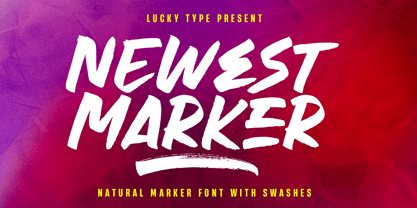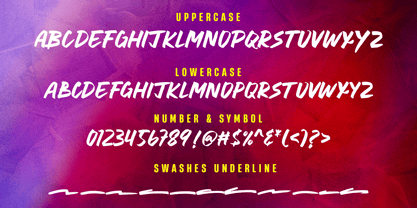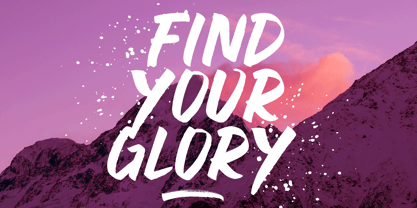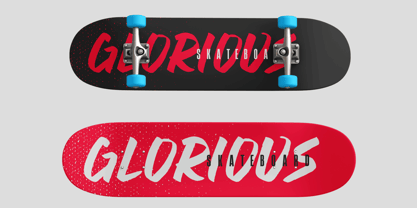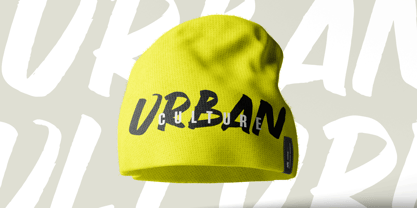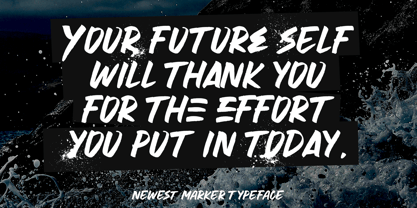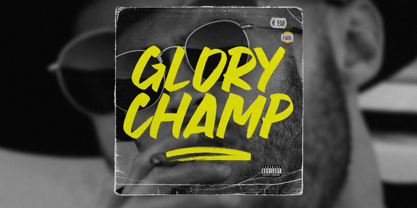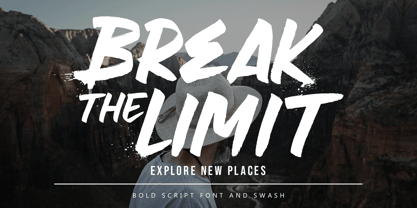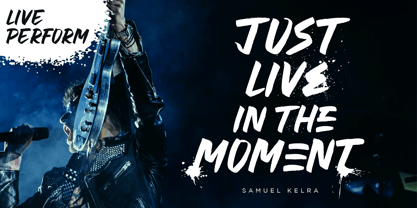
Newest Marker
by Lucky Type
The Newest Marker Font Family was designed by Muhammad Fajar and published by Lucky Type. Newest Marker contains 2 styles and family package options. More about this family
Newest Marker is a handwritten sans font that combines informal and personal handwritten characteristics with a clean, modern sans-serif typeface style.
Newest Marker has a relaxed and informal feel, its simplicity makes it suitable for professional environments too. Clean lines maintain clarity and readability, making it ideal for websites, advertising, posters, logos and branding that want a personal touch without being too informal.